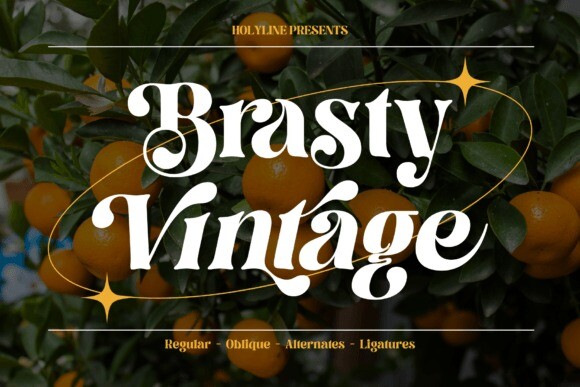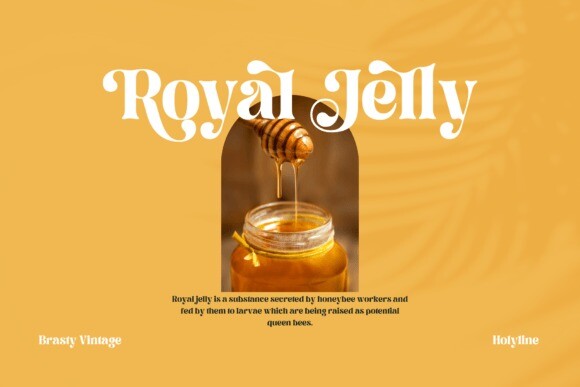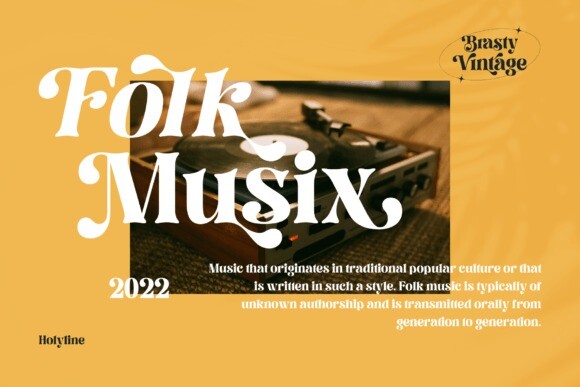
Brasty Vintage Font
Introducing “Brasty Vintage” an exquisite vintage serif font, crafted with precision to evoke a sense of timeless elegance. The intricate curves and delicate serifs of each letter embody a bygone era of sophistication and refinement. Perfect for adding a touch of classic charm to any design project. This font is PUA encoded which means you can access all glyphs and swashes effortlessly!